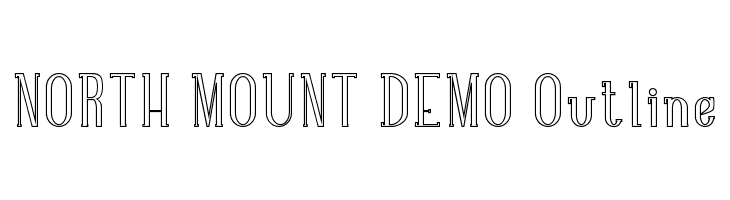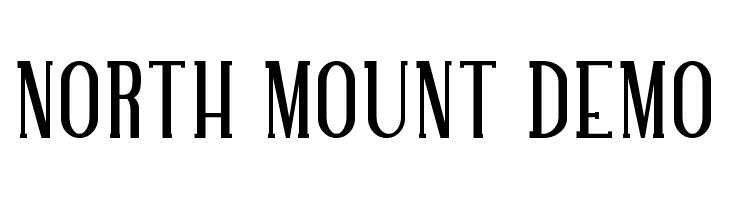
A bold, modern font with strong vertical lines and subtle curves.
A bold, vintage serif font with tall, narrow letters and elegant serifs.
A stylish outline font with a blend of serif and sans-serif elements, offering elegance and readability.
A modern outlined font with clean, geometric lines and a cohesive design.